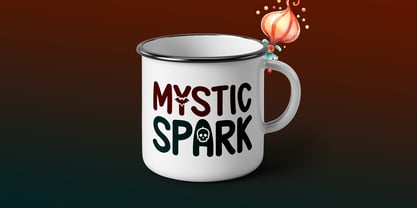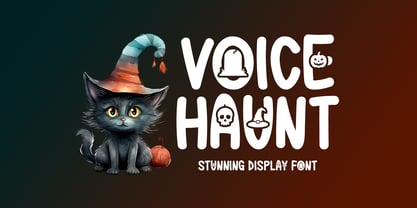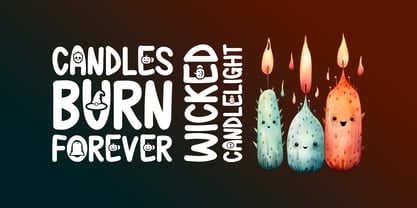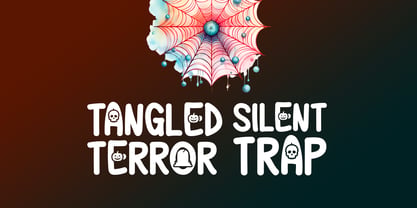
Voice Haunt
von Seemly Fonts
Die Schriftfamilie Voice Haunt wurde von Md. Sohail Bhuiyan entworfen und von Seemly Fonts veröffentlicht. Voice Haunt enthält 1 Stile. Mehr über diese Familie
Voice Haunt is a bold Halloween display font crafted to capture the chilling spirit of spooky celebrations. Its handcrafted letterforms feature a haunting personality with strong shapes that command attention in every design. Perfect for Halloween party invitations, horror movie titles, haunted house posters, branding, packaging, social media graphics, apparel, decorations, and seasonal crafts, this font delivers a mysterious, eerie atmosphere while remaining clear, striking, and highly memorable.
Designer: Md. Sohail Bhuiyan
Foundry: Seemly Fonts